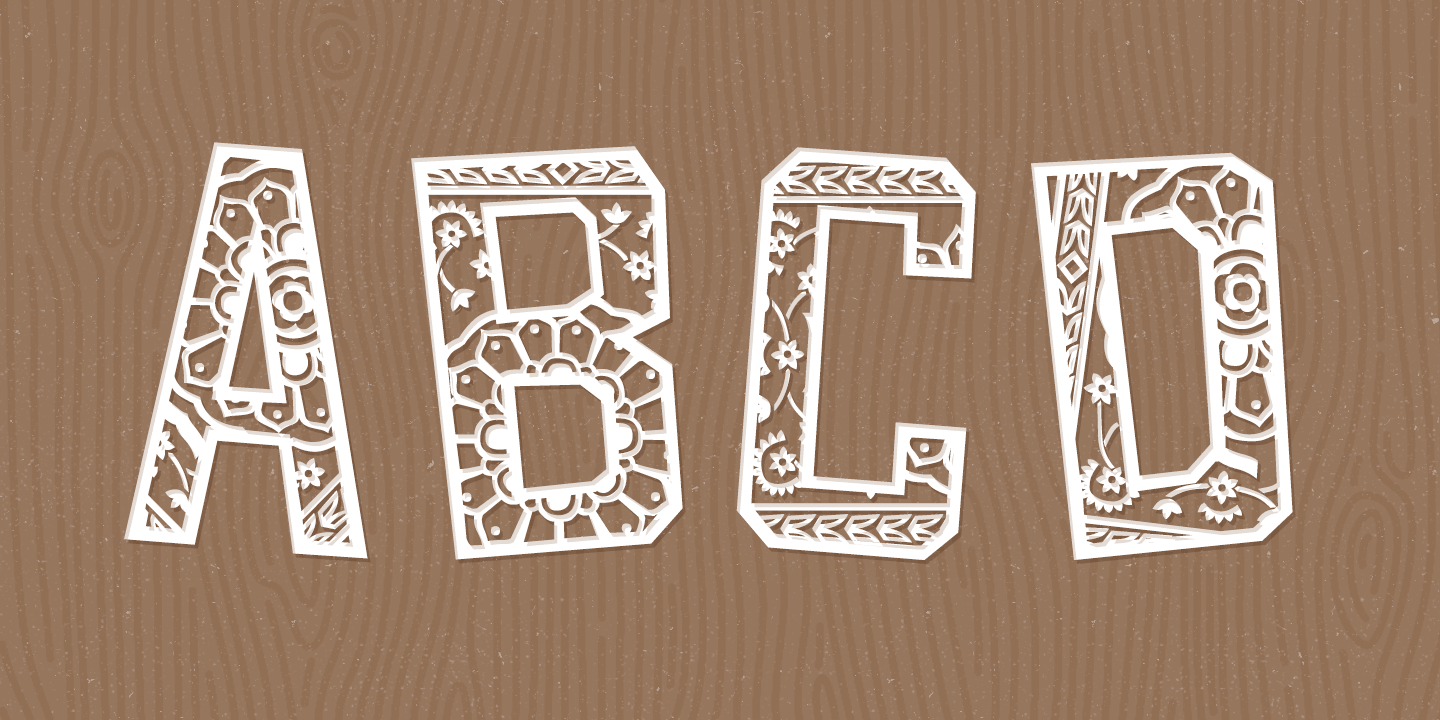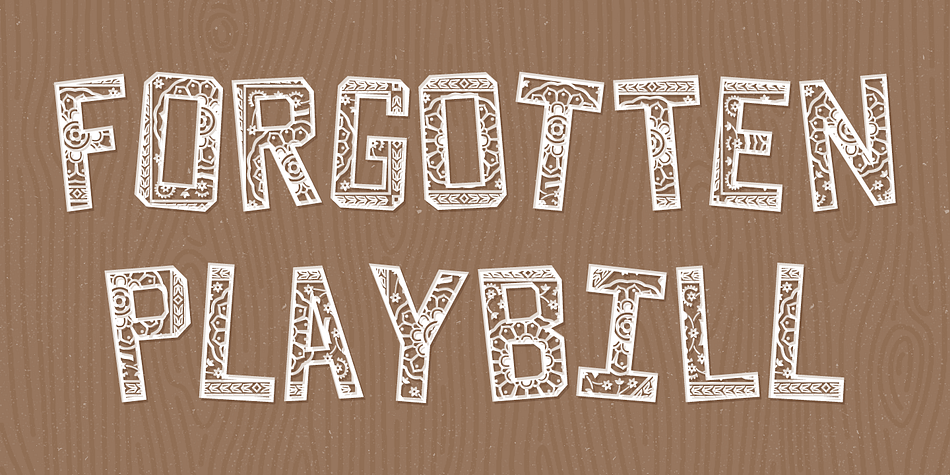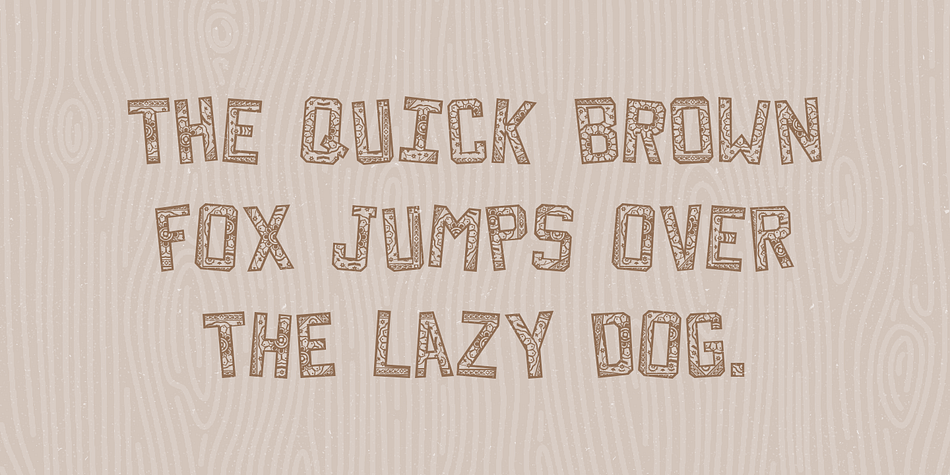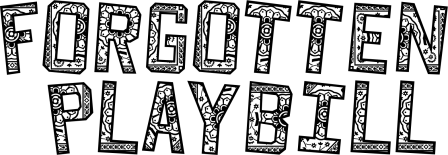
Designed by Lauren Ashpole, Forgotten Playbill is a display font published by Lauren Ashpole.
Years ago, I came across a vintage playbill and was struck by its lettering. The detailed floral pattern surrounded by thick outlines stayed in my mind even though the play’s name and cast have faded. I finally tried to recreate the style from memory and Forgotten Playbill is the result.
While all letters are actually capitals, the uppercase rotate slightly counterclockwise and the lowercase slightly clockwise. I suggest alternating between the two to reproduce my mystery inspiration.